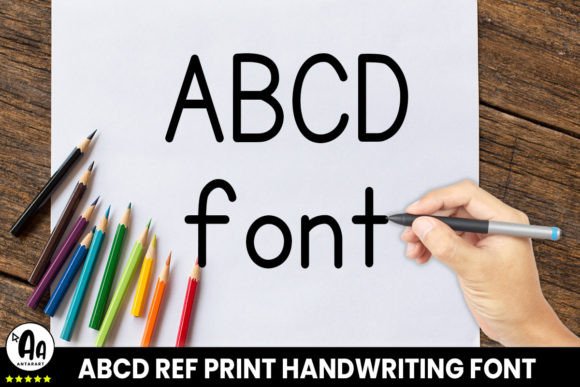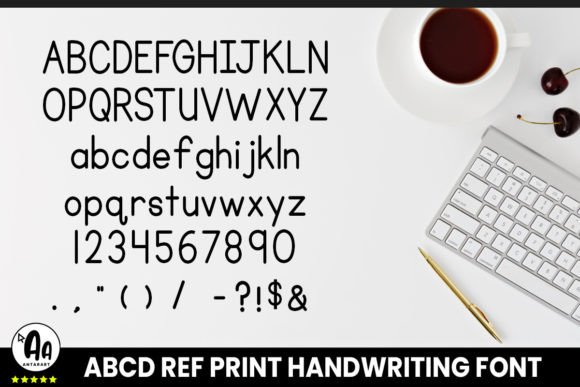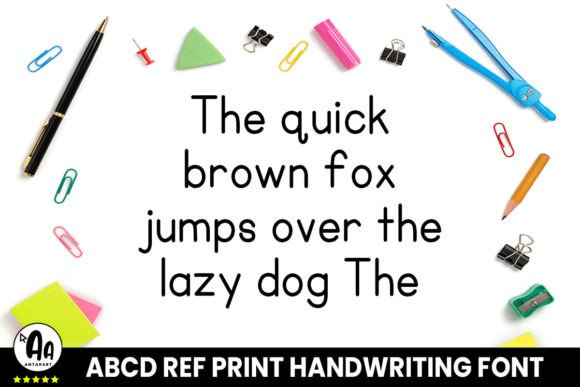
Unlocking the Power of Hands-On Learning with ABCD Ref Medium Font
Remember the joy of tracing letters on a chalkboard or scribbling with a crayon as a child? Those moments sparked a love for learning that has stayed with many of us throughout our lives. The ABCD Ref Medium Font family brings back that same excitement, this time for designers and educators looking to create engaging materials for young learners.
Developed based on the D’Nealian Method US school, this display font is designed to help create thousands of interactive worksheets. Perfect for those who want to teach or learn the print alphabet in a fun and enjoyable way, the ABCD Ref Medium Font family is a valuable resource for designers and educators alike.
Abcd Ref Medium Font Key Features
• Font Family: Abcd Ref Medium Font is a sans-serif font family designed for readability and clarity.
• Unique Characteristics: Abcd Ref Medium Font features a clean and modern design, with a focus on legibility and readability. The font has a medium weight, making it suitable for body text and headings.
Design Review: Abcd Ref Medium Font
Overall, I think the Abcd Ref Medium Font is a solid choice for body text. ✨ The font’s clean lines and moderate x-height make it highly readable, even at smaller font sizes. It’s also a great choice for digital applications, where screen legibility is crucial. The font’s modern aesthetic gives it a professional feel, making it suitable for a wide range of industries.
• ✨ Highly readable, even at smaller font sizes
• ✨ Clean lines and moderate x-height
• ✨ Modern aesthetic and professional feel
• ✨ Suitable for digital applications and a wide range of industries
Limited by:
• ⚠️ Limited character set support, which may make it difficult to use for languages that require a wide range of special characters
• ⚠️ May not be suitable for applications where a strong, bold font is required, as it can appear somewhat fragile
• ⚠️ Not as versatile as some other fonts, which may limit its use in creative applications
While the Abcd Ref Medium Font has some limitations, its clean design and high readability make it a solid choice for body text in digital applications. With some careful consideration of its limitations, it can be a great addition to a designer’s toolkit.
Abcd Ref Medium Font is commonly used in:
Book titles and headings
Magazine and newspaper headlines
Infographic labels and titles
Business card and resume headings